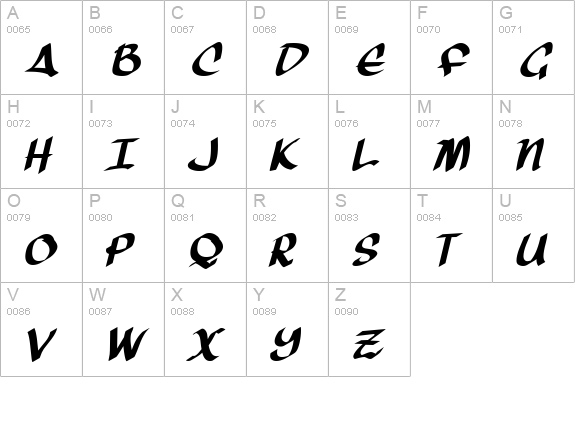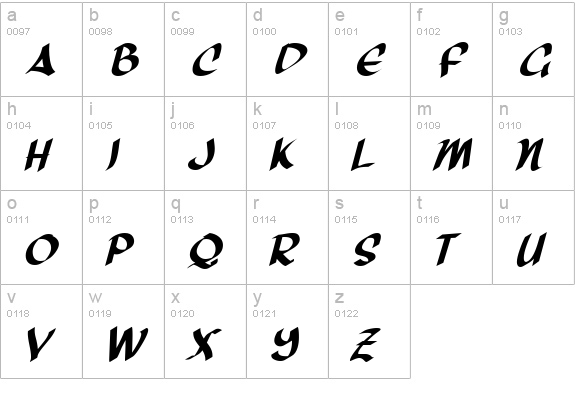
Three Arrows Italic Font Details
Three Arrows Italic is a distinctive, italic variant in the Three typeface family \xE2\x80\x94 well suited to design and typography projects.
Introducing Three Arrows Italic, a captivating and versatile font that effortlessly combines elegance with a touch of whimsy. This stunning typeface is the perfect choice for those seeking a unique and eye-catching design that exudes both sophistication and creativity. Three Arrows Italic features graceful curves and distinctive letterforms that seamlessly flow together, creating a harmonious and visually pleasing aesthetic. Its italicized slant adds a sense of motion and dynamism, making it ideal for projects that require a sense of energy and movement. This font's versatility knows no bounds, as it effortlessly adapts to various design contexts. Whether used for branding, logo design, packaging, or web graphics, Three Arrows Italic commands attention and adds a touch of elegance to any project. But what makes Three Arrows Italic even more appealing is that it is freely available to download at FontsMarket.com. Yes, you read that right! This remarkable font can be yours without any cost, allowing you to explore its creative potential without any limitations. So why wait? Embrace the beauty and versatility of Three Arrows Italic and take your designs to new heights. Download this stunning font today and unlock a world of endless possibilities.